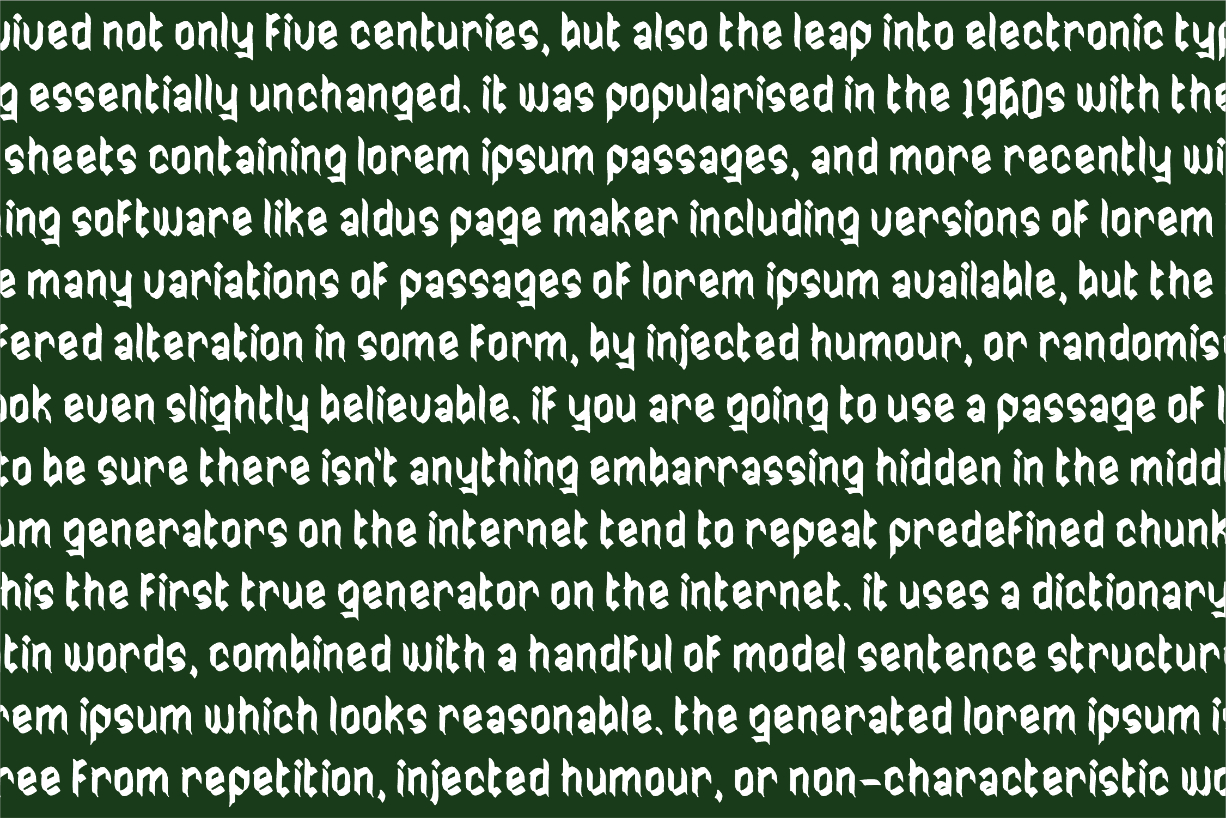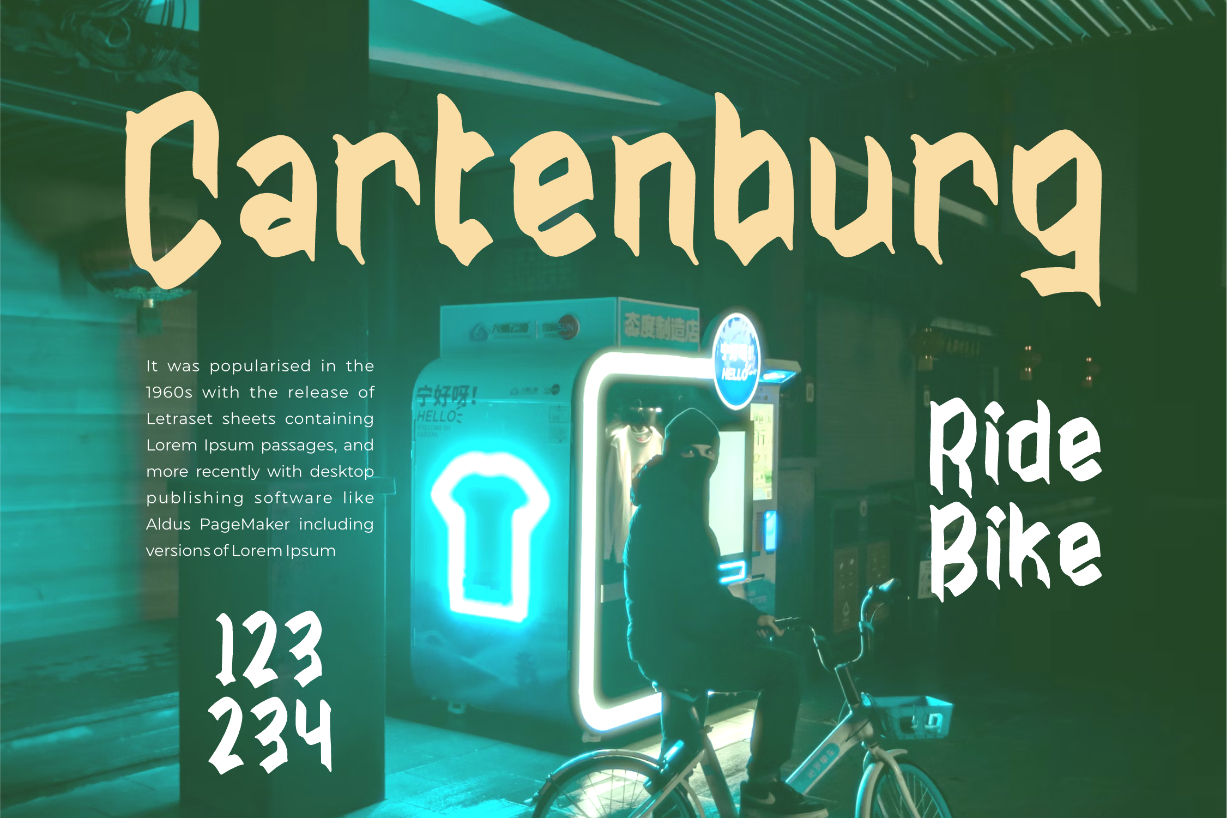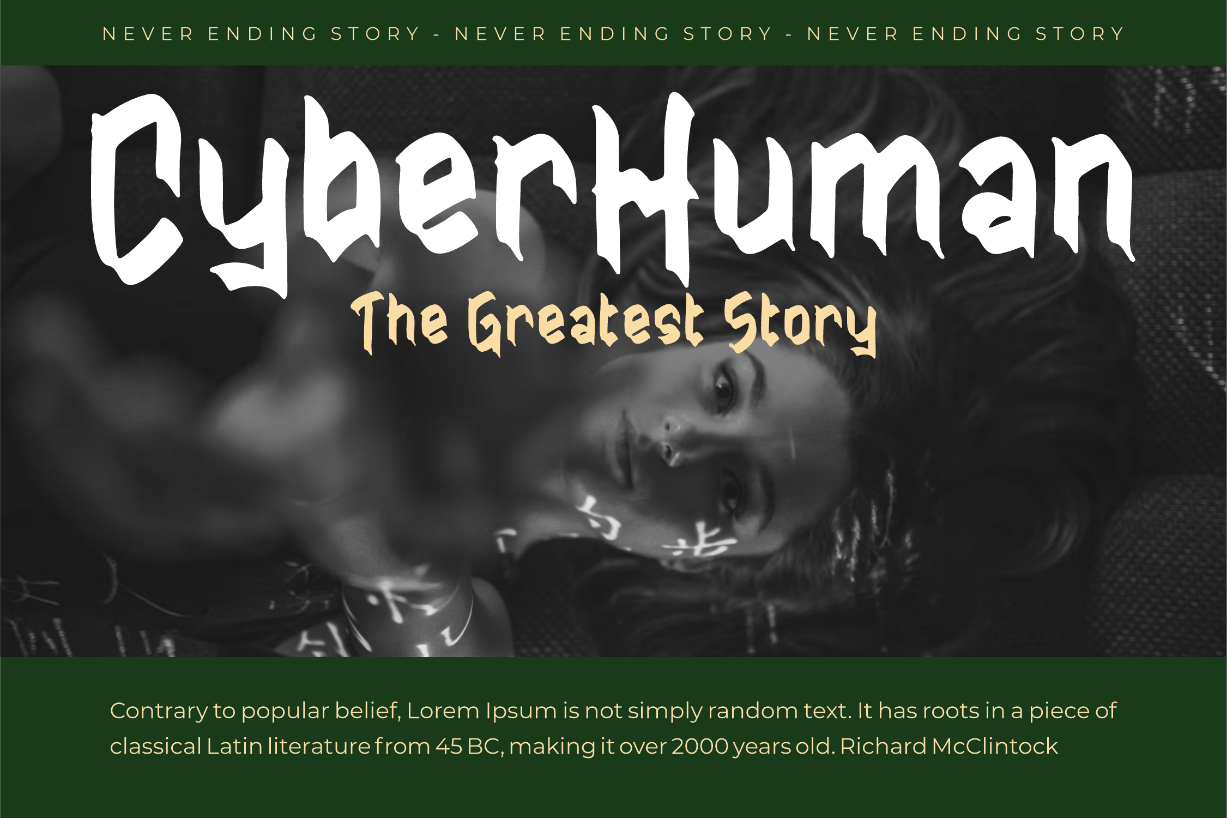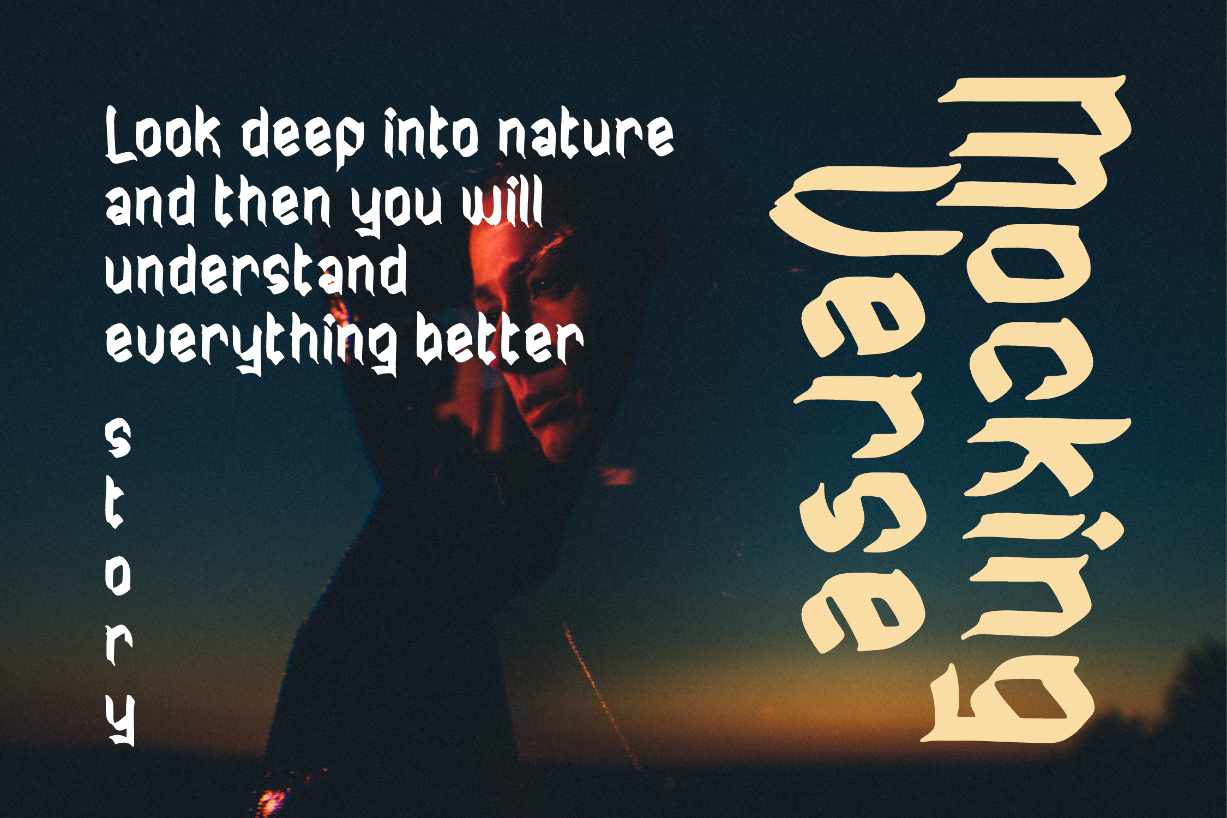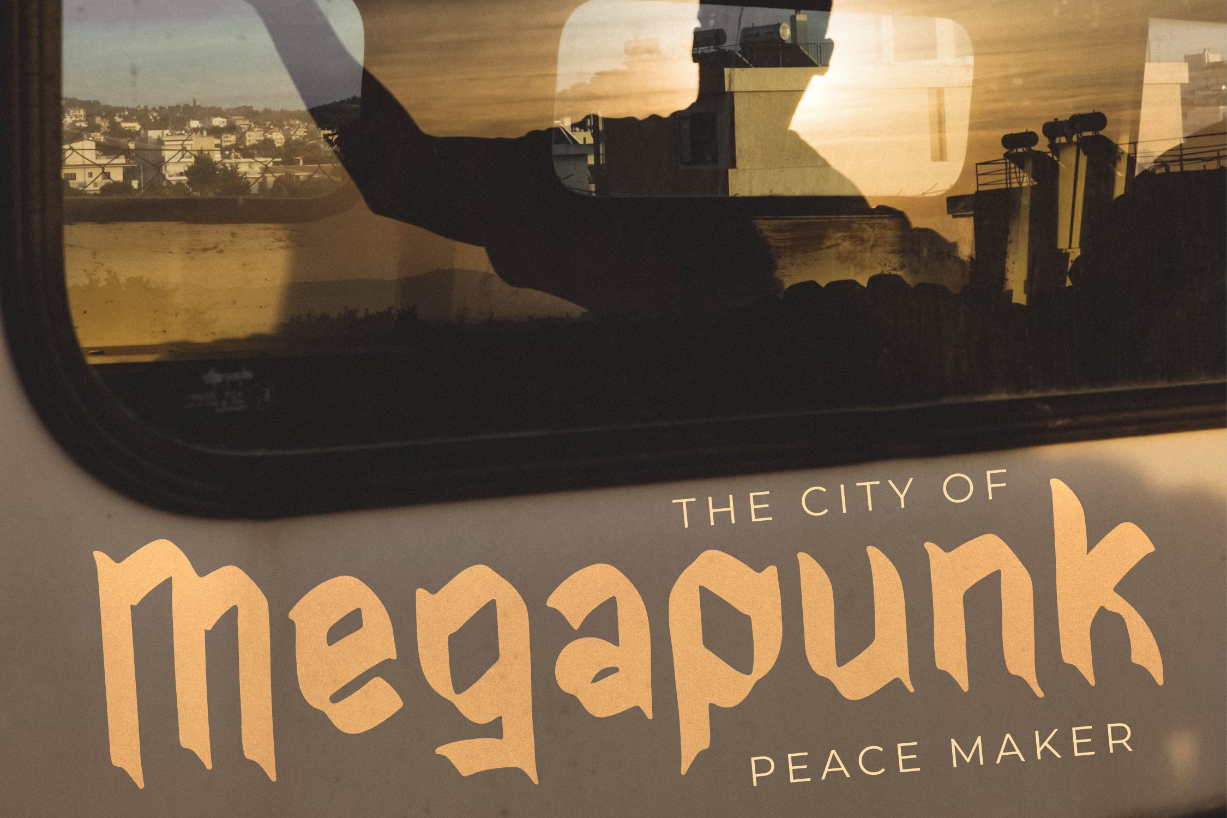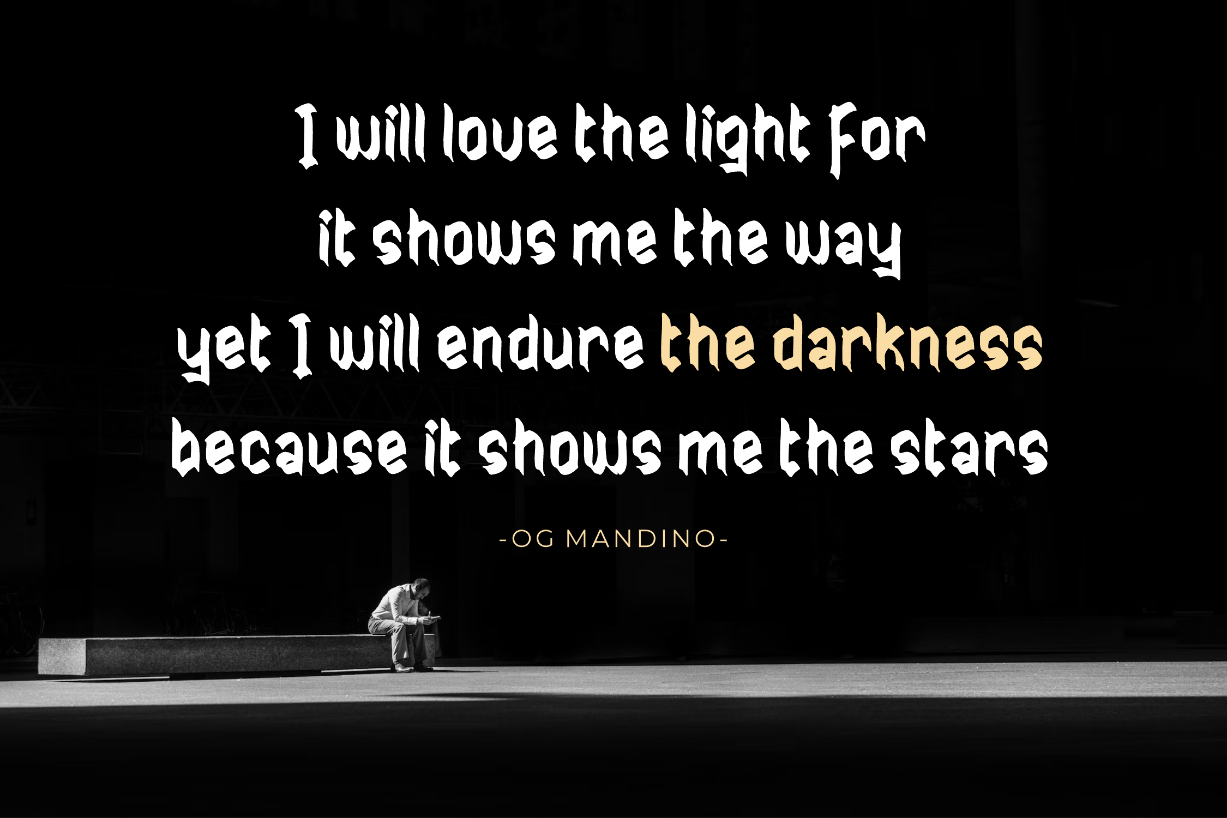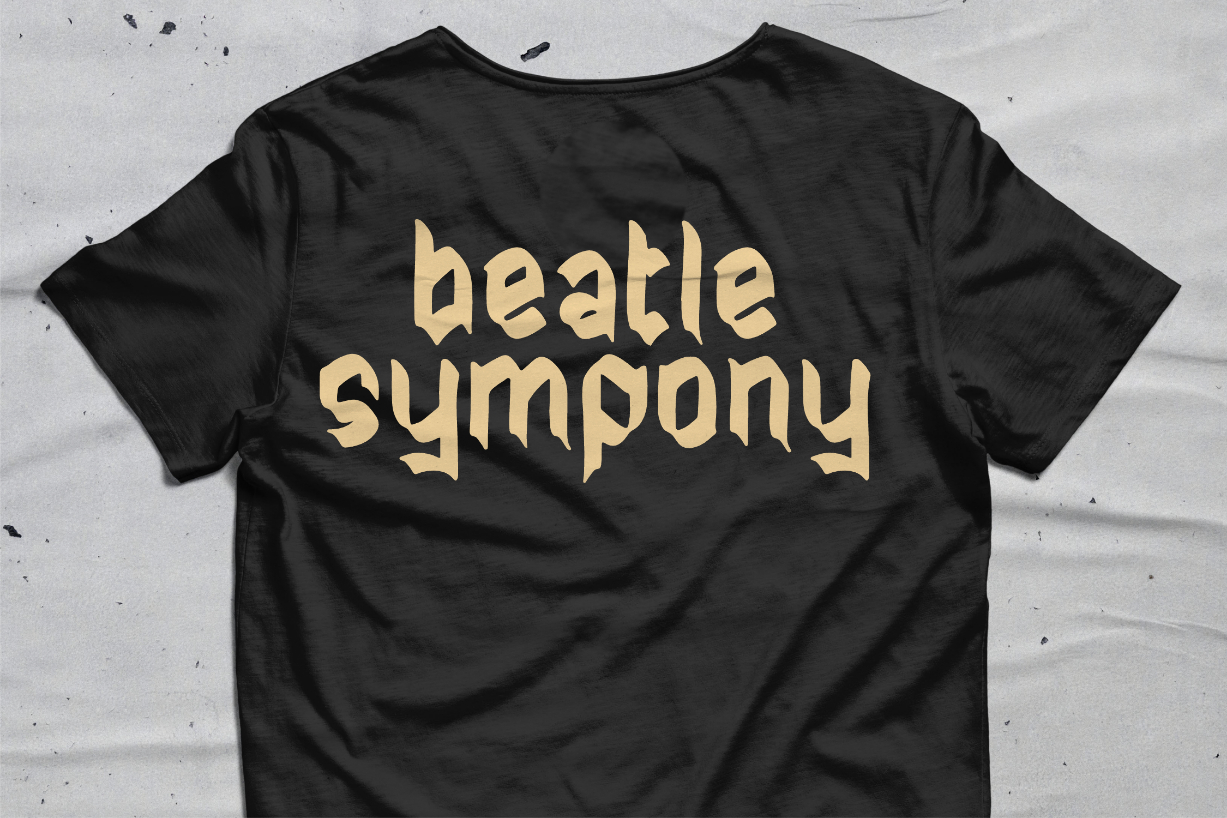
Jailbolt Font
About Jailbolt Font
Jailbolt is a thick and edgy blackletter font, suitable for any project such as logos, branding, homeware designs, product packaging, mugs, quotes, posters, shopping bags, t-shirts, book covers, name cards, invitation cards and much more.